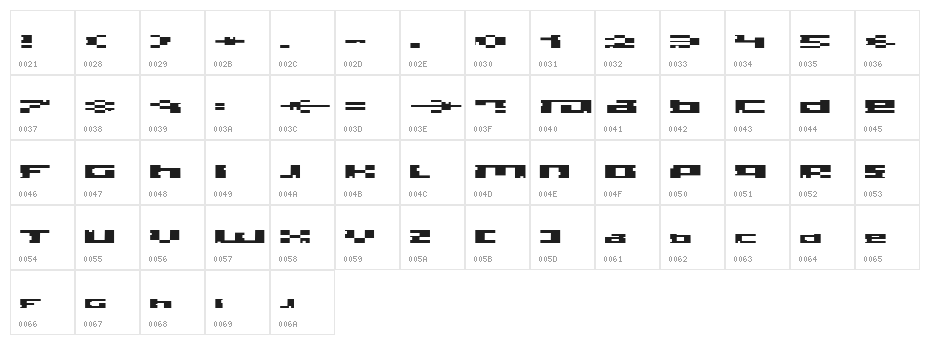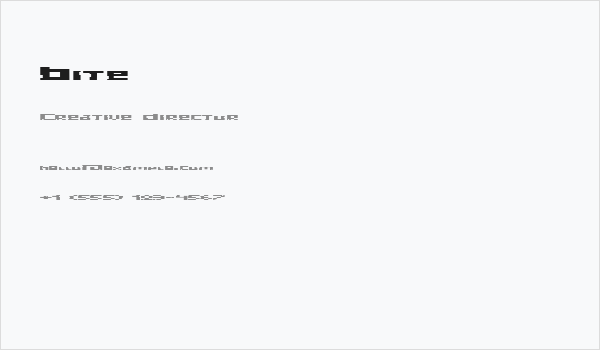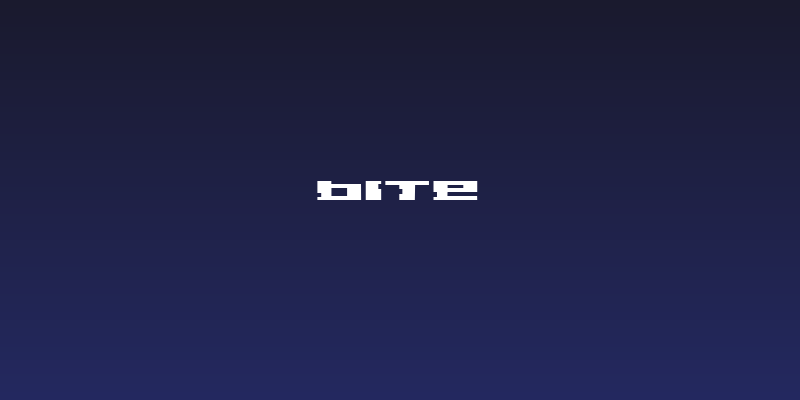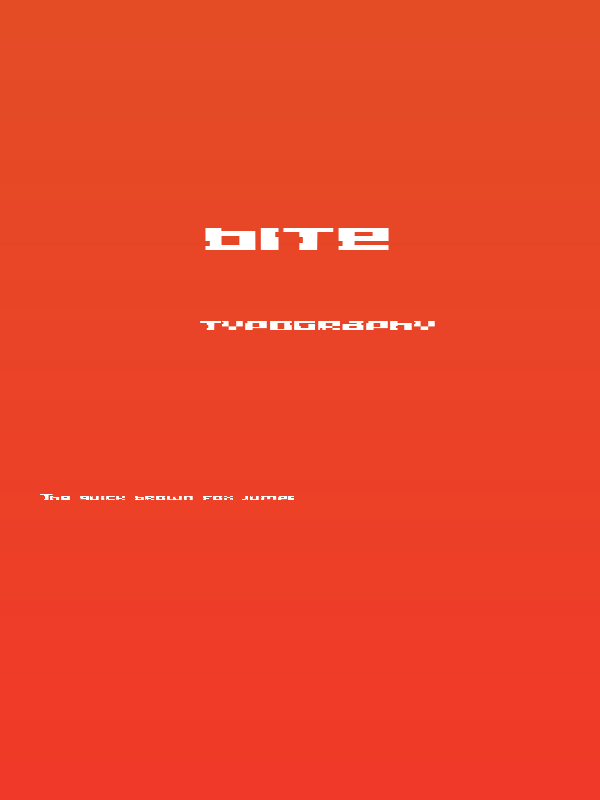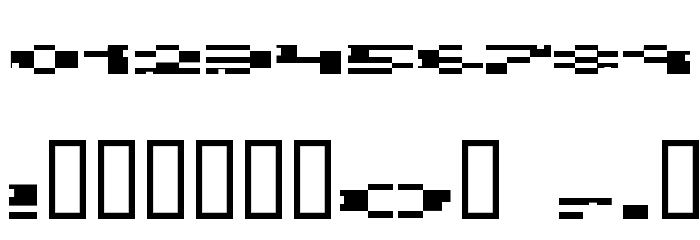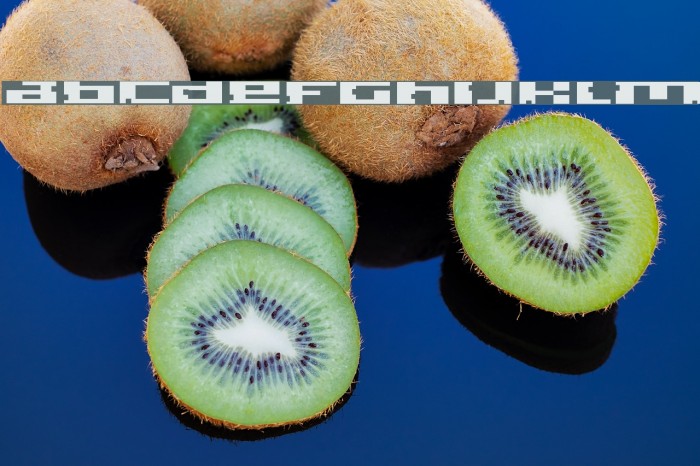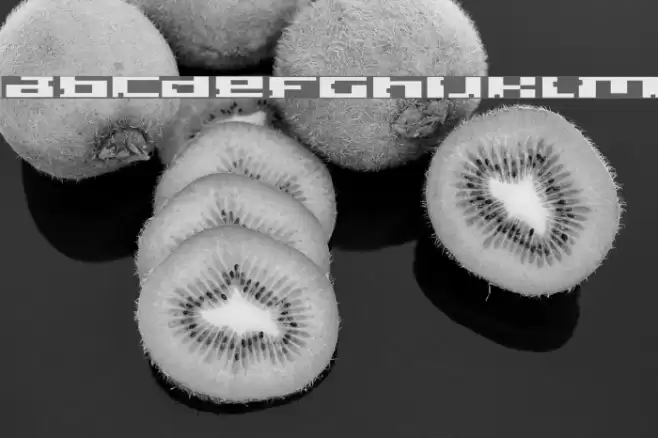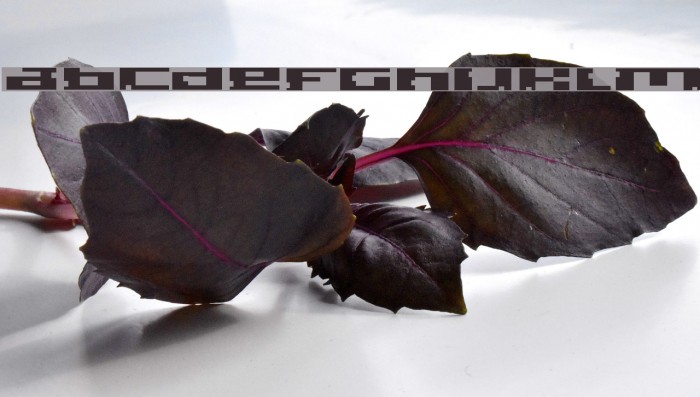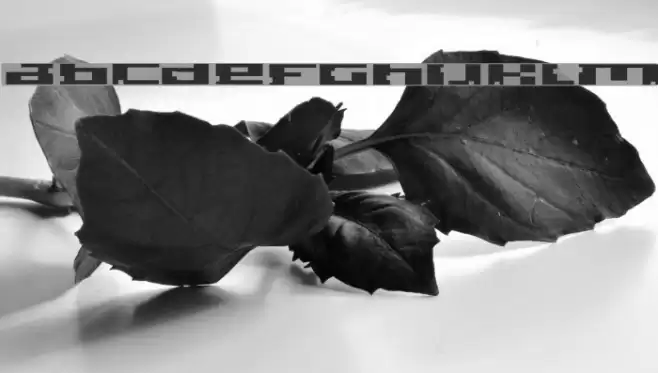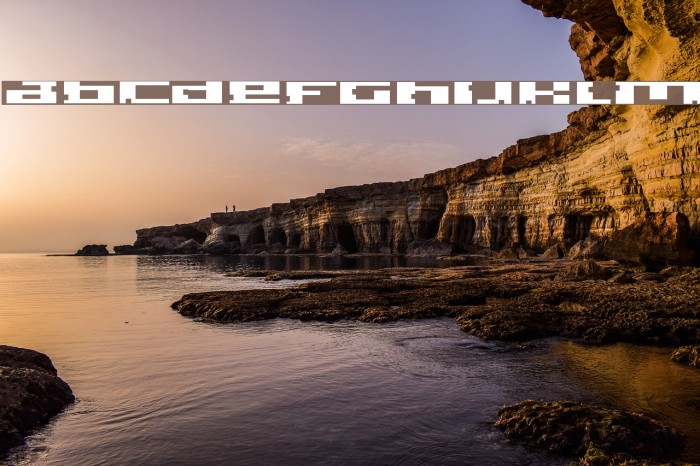
Bite Font
Bite Description
This font features a bold, geometric design with a pixelated aesthetic reminiscent of early digital displays. The characters are constructed with sharp, angular edges and consistent block-like shapes, giving it a distinctly modern and technological feel. The uppercase and lowercase letters maintain a uniform height, contributing to a cohesive and structured appearance. Numbers and special characters follow the same design principles, ensuring a seamless integration across all text elements. The font's style is both striking and functional, making it suitable for digital-themed projects.
| Use Case | Logos, Headlines, Digital displays |
| Proposed Projects | Ideal for video game graphics, tech logos, digital art, and futuristic designs. |